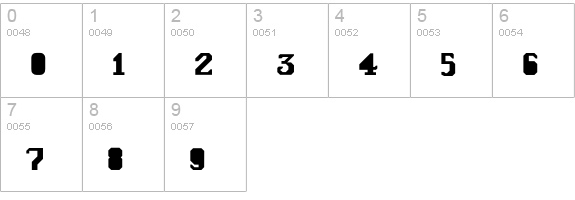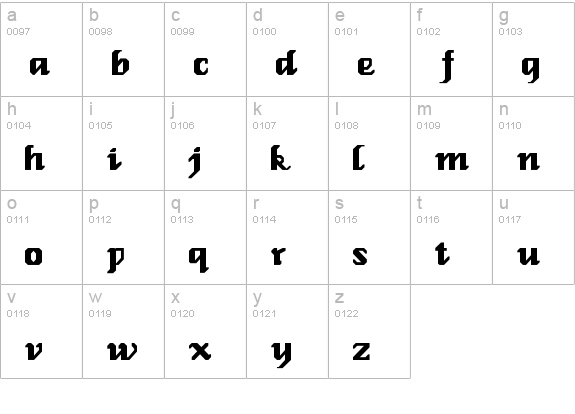
GenoaRoman Font Details
GenoaRoman is a stunning and versatile font that exudes elegance and sophistication. With its classic yet modern design, GenoaRoman is perfect for a wide range of design projects, from branding to editorial design. This timeless font features clean lines and a balanced look that will elevate any project it's used in. Best of all, GenoaRoman is available for free download at FontsMarket.com. You can easily access this exquisite font and enhance your designs with its timeless appeal. Don't miss out on the opportunity to add GenoaRoman to your font collection and bring a touch of sophistication to your next project. Download it for free today at FontsMarket.com!